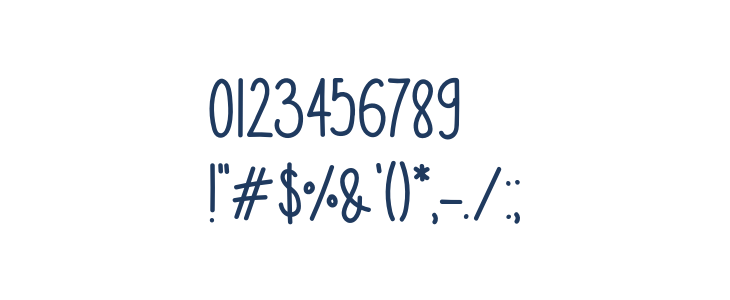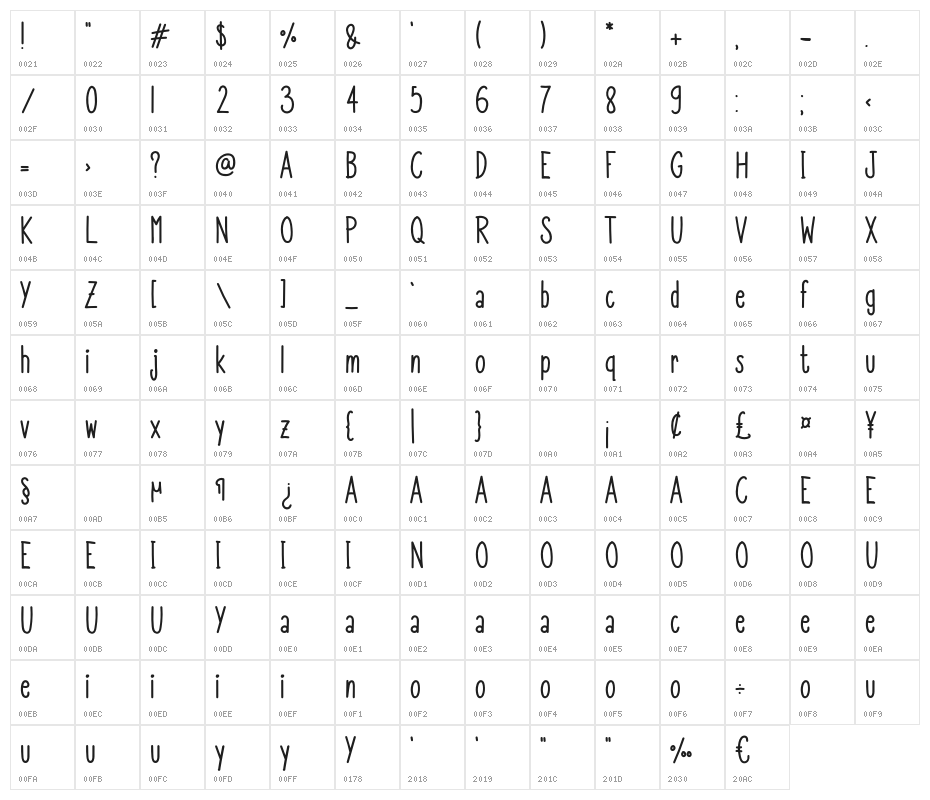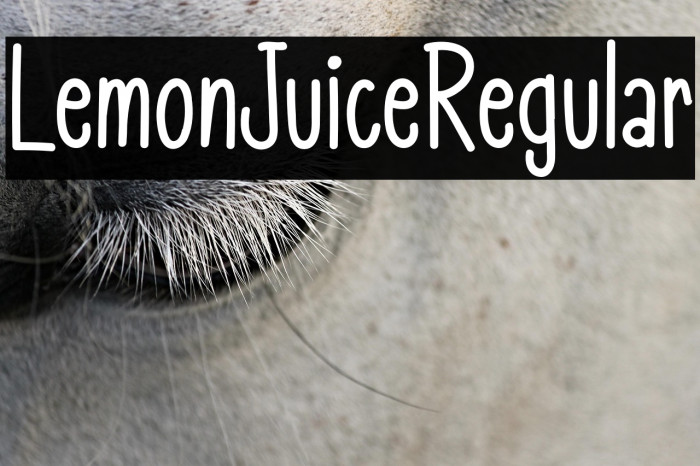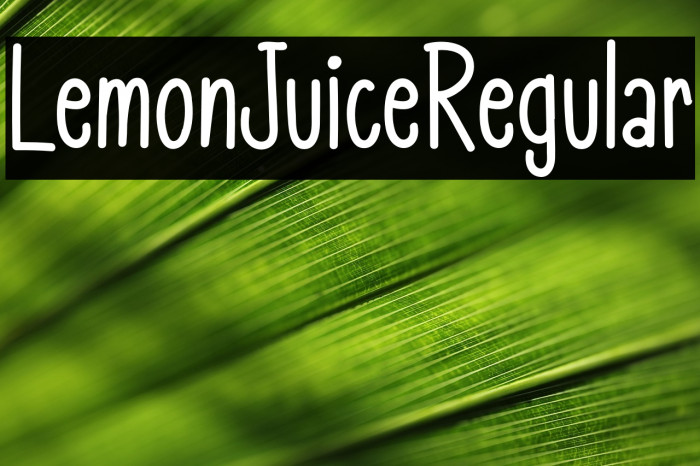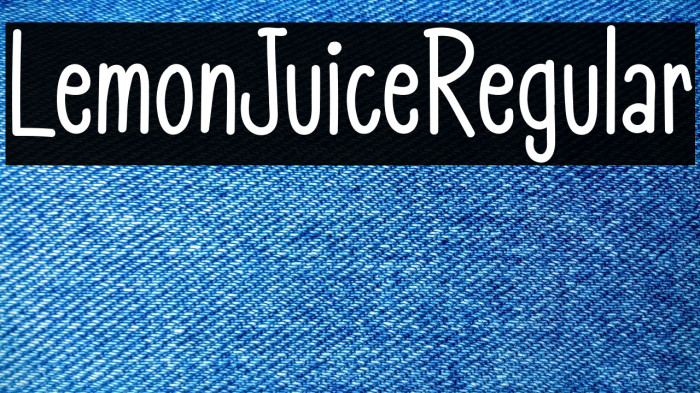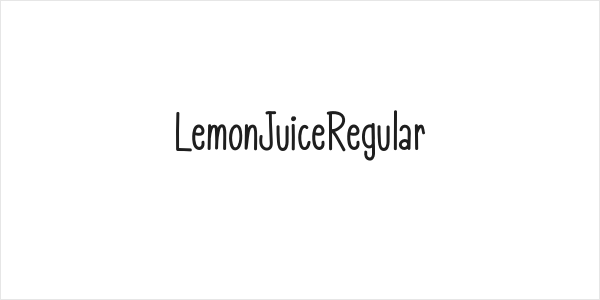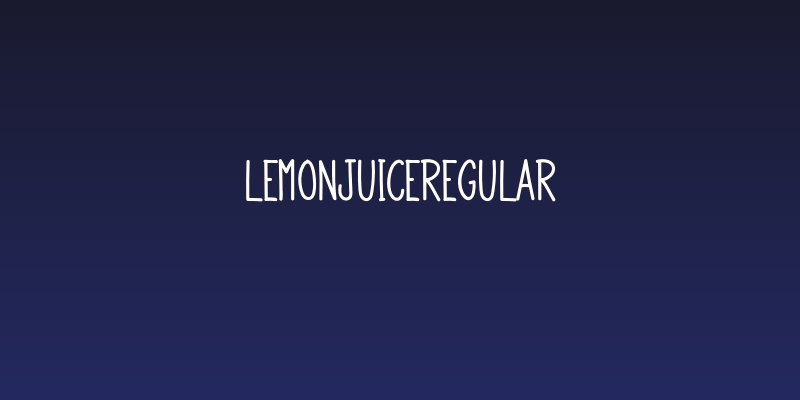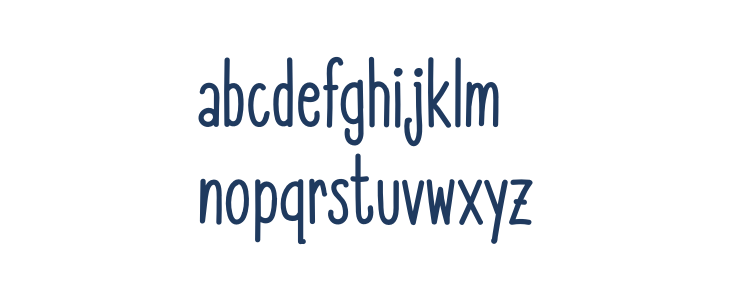
LemonJuiceRegular Font
LemonJuiceRegular Description
This font features a playful and casual handwritten style, characterized by its tall, narrow letters and slightly irregular strokes. The uppercase and lowercase letters maintain a consistent flow, creating a friendly and approachable appearance. The numerals are clear and easy to read, matching the overall aesthetic of the font. Special characters are included, enhancing its versatility. The font's informal nature makes it suitable for creative projects that require a touch of personality and warmth.
| Proposed Projects | Ideal for greeting cards, children's books, playful branding, and social media graphics. |